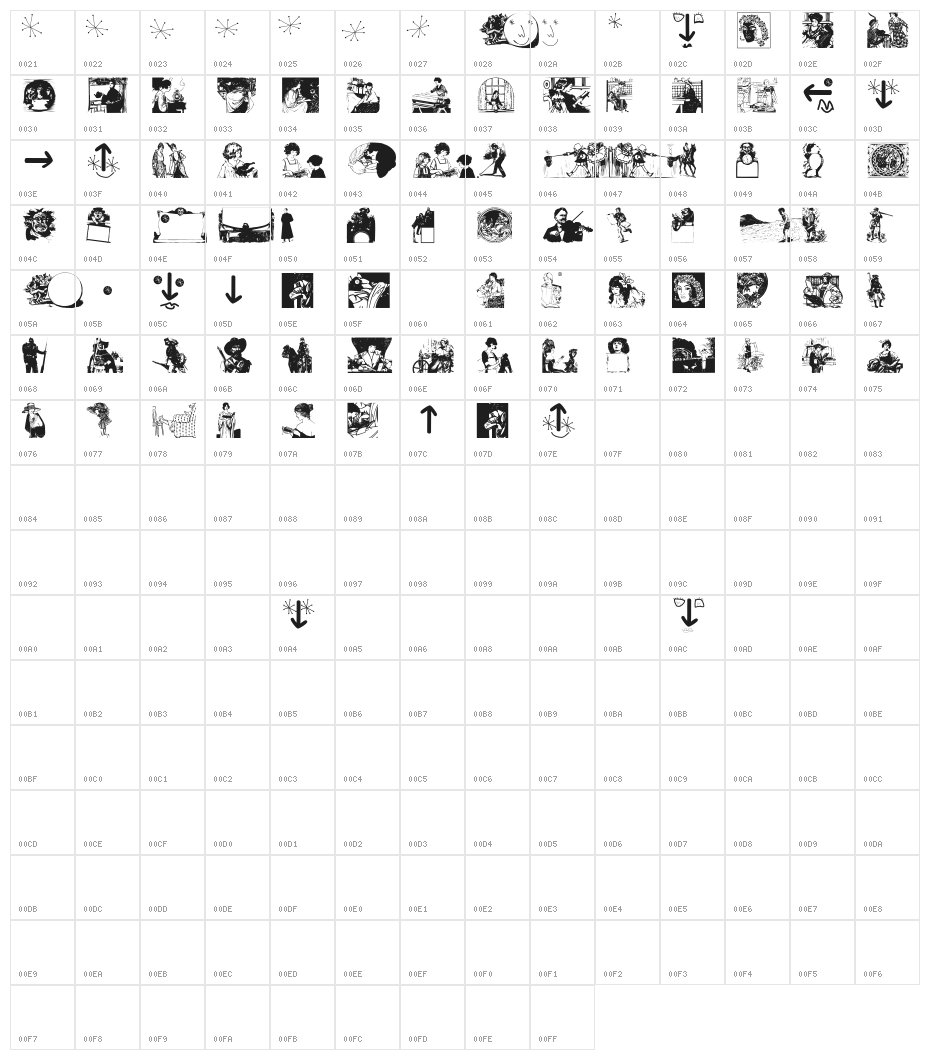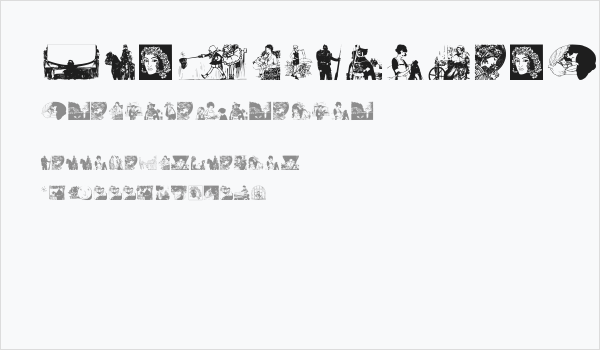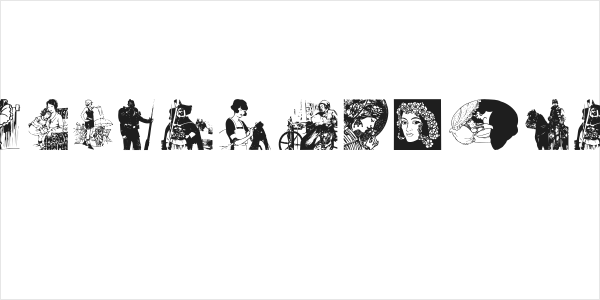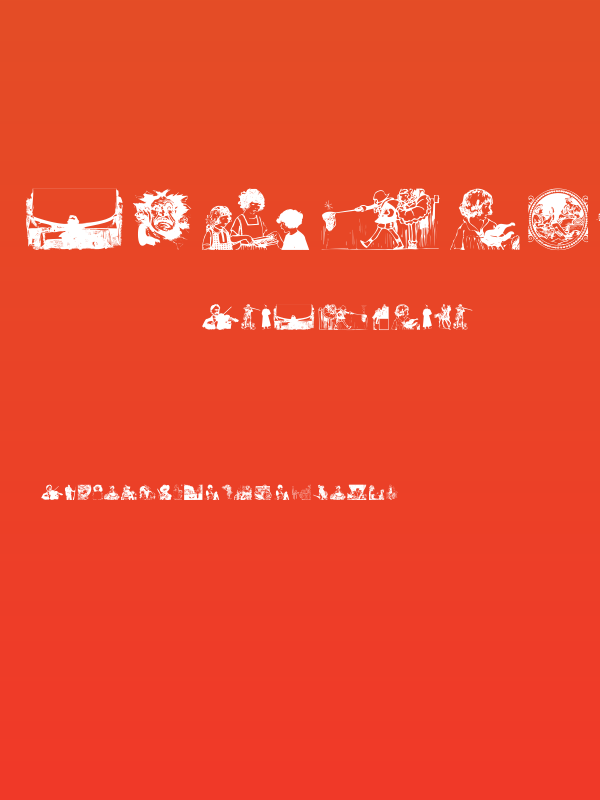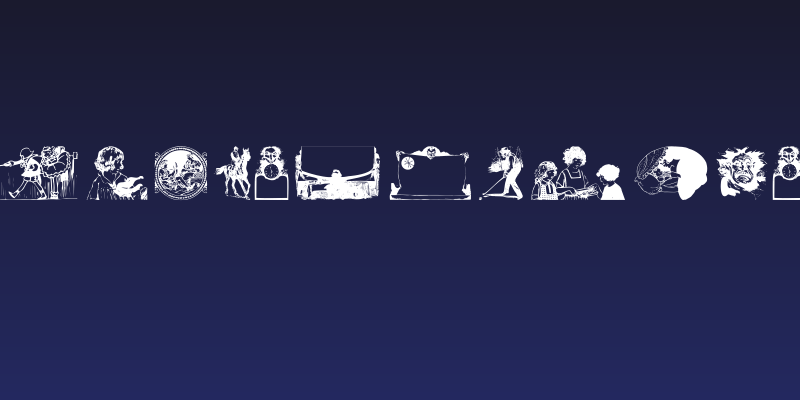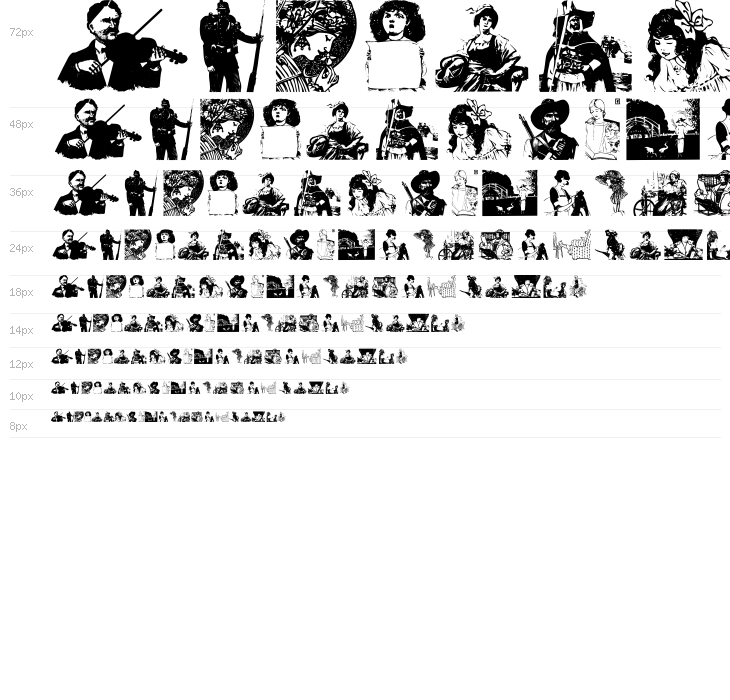
OldFashionedClichees Font
OldFashionedClichees Description
This collection features a series of vintage illustrations, each depicting a unique scene or character. The images are reminiscent of old-fashioned clichΓΒ©s, capturing moments of historical or cultural significance with a whimsical touch. Each illustration is detailed, showcasing a variety of characters in different settings, from musicians and dancers to everyday people engaged in various activities. The style is reminiscent of classic storybook illustrations, with a playful and nostalgic feel. The images are monochromatic, emphasizing the intricate line work and shading that bring each scene to life. This collection is perfect for adding a touch of vintage charm to any project, offering a glimpse into the past with a humorous and artistic flair.
| Use Case | Decorative elements, Posters, Greeting cards |
| Proposed Projects | Ideal for use in retro-themed designs, greeting cards, posters, or as decorative elements in publications seeking a nostalgic touch. |